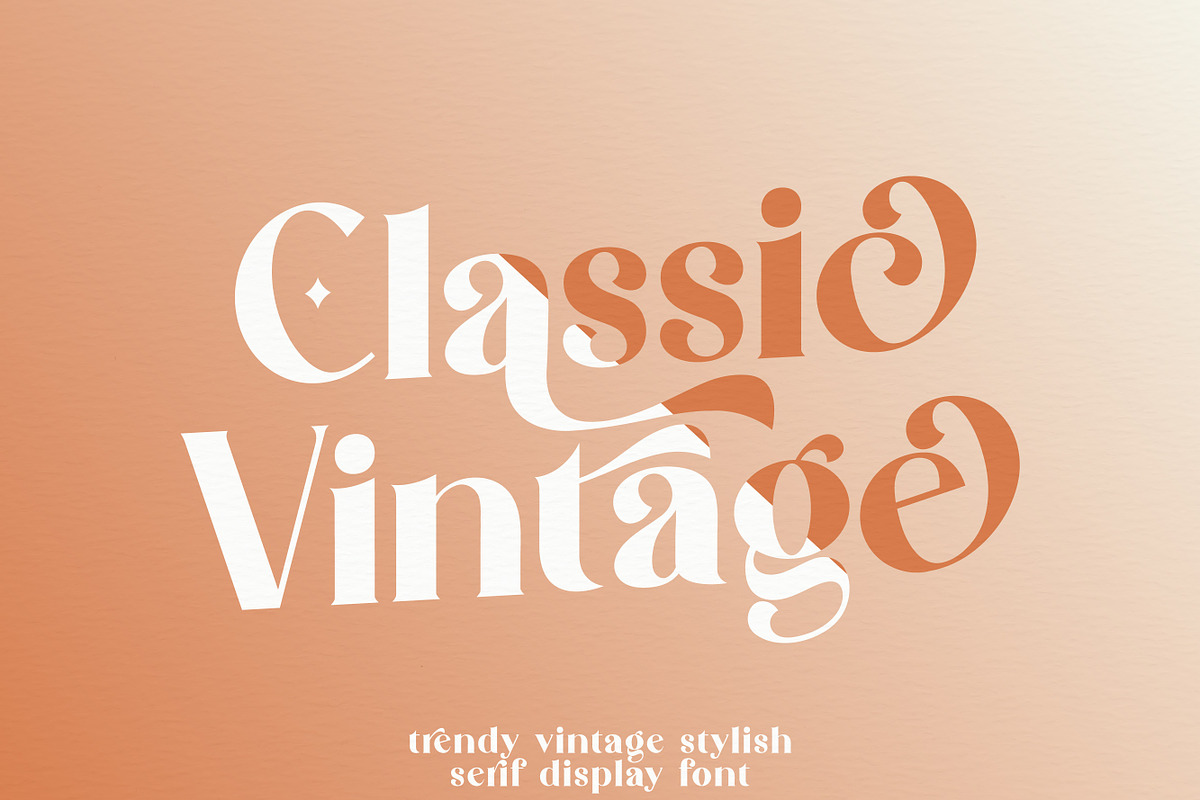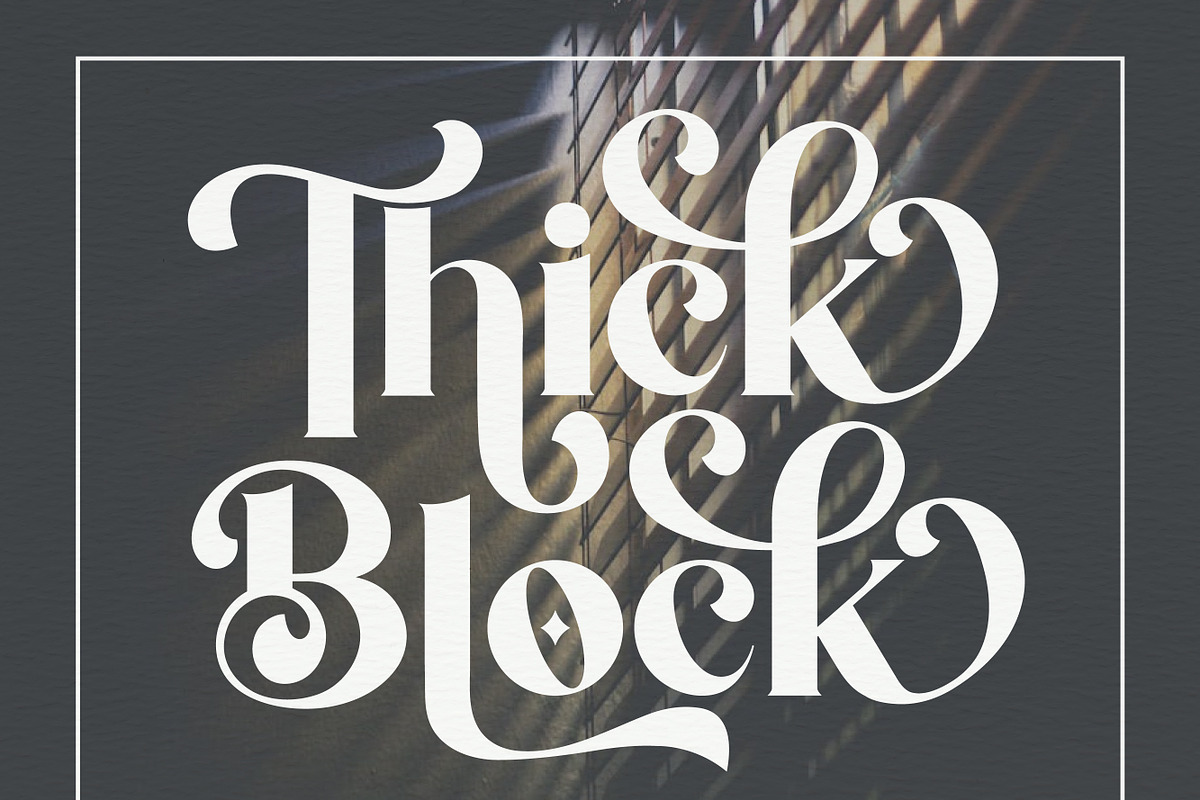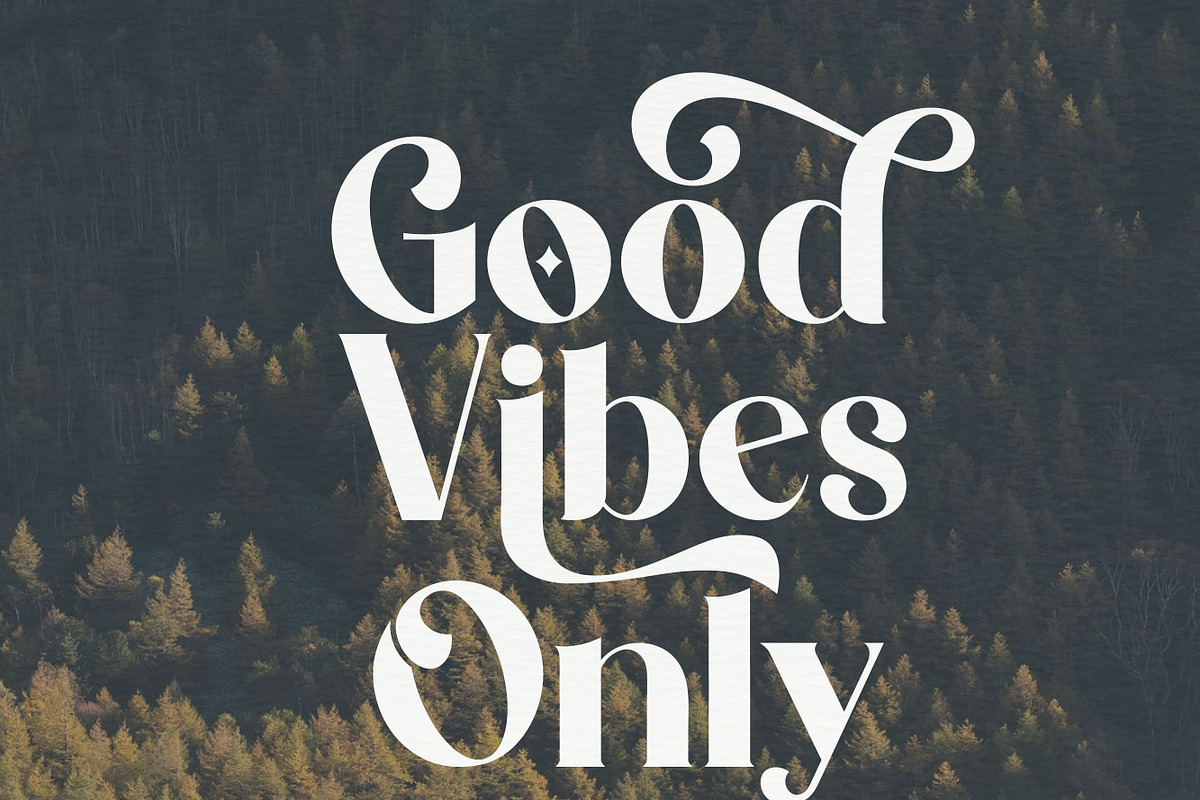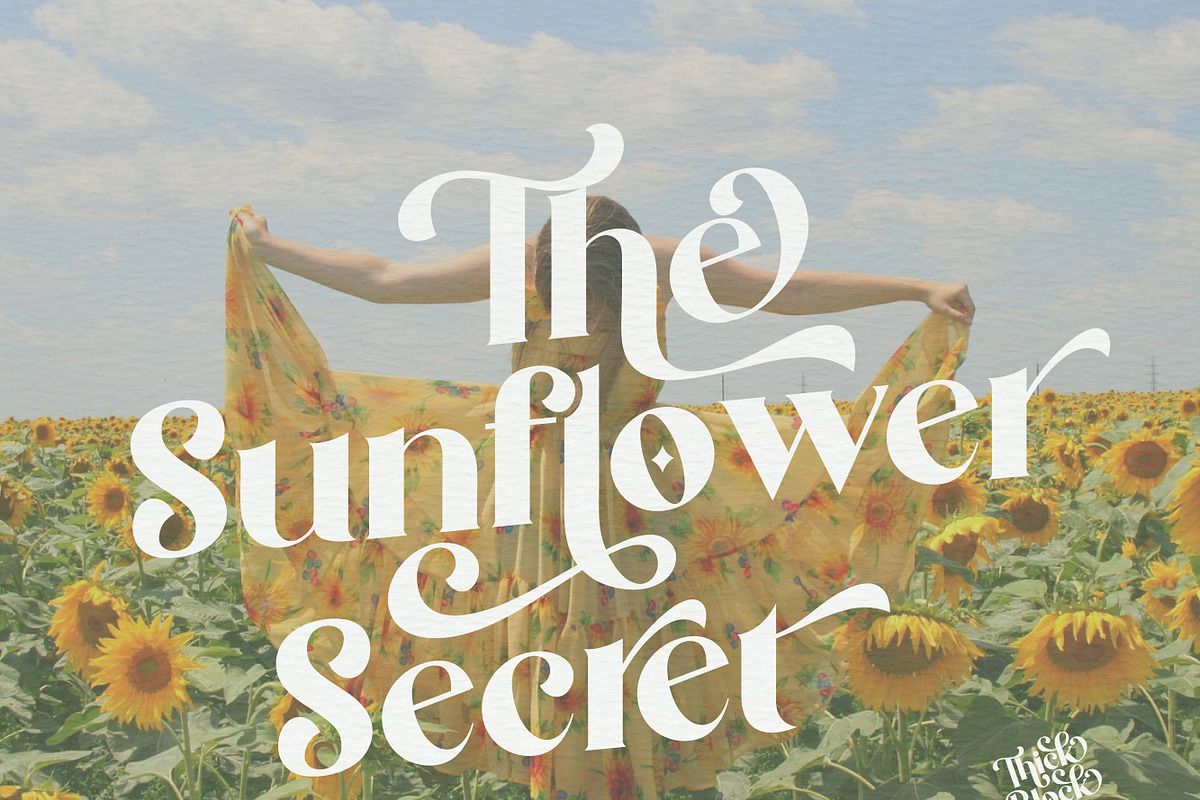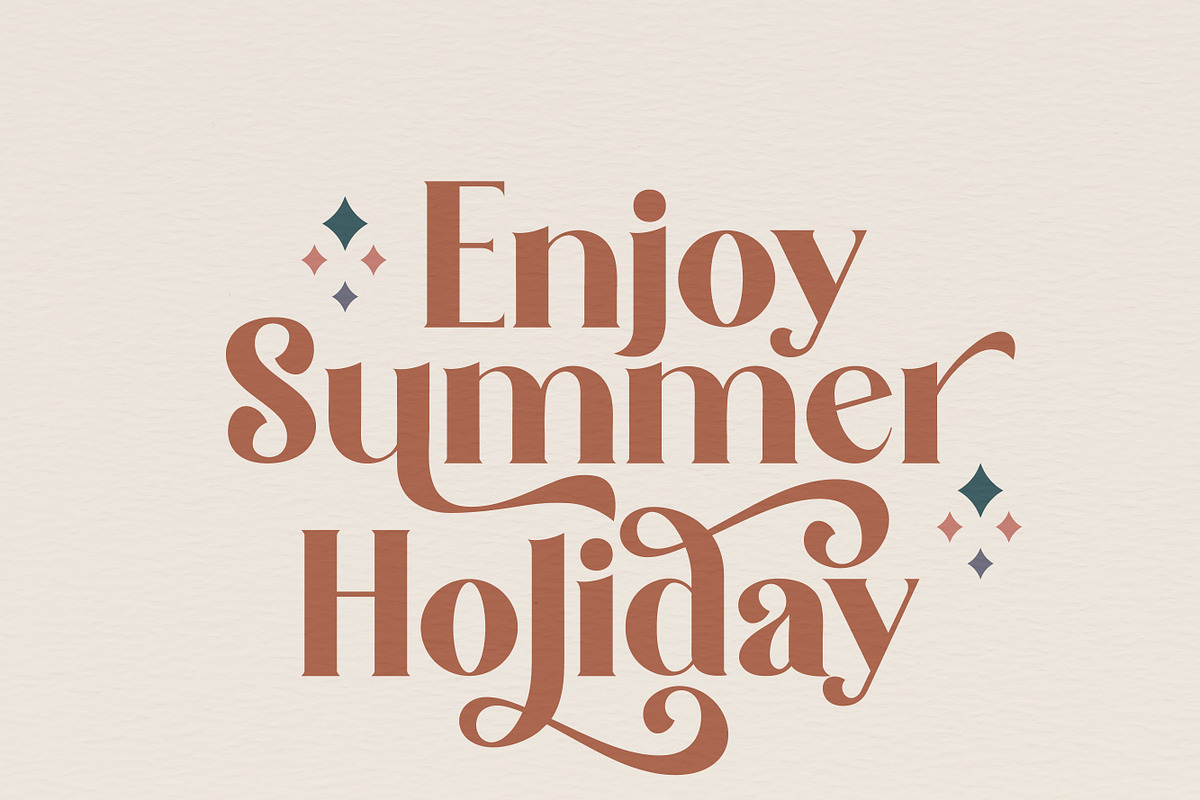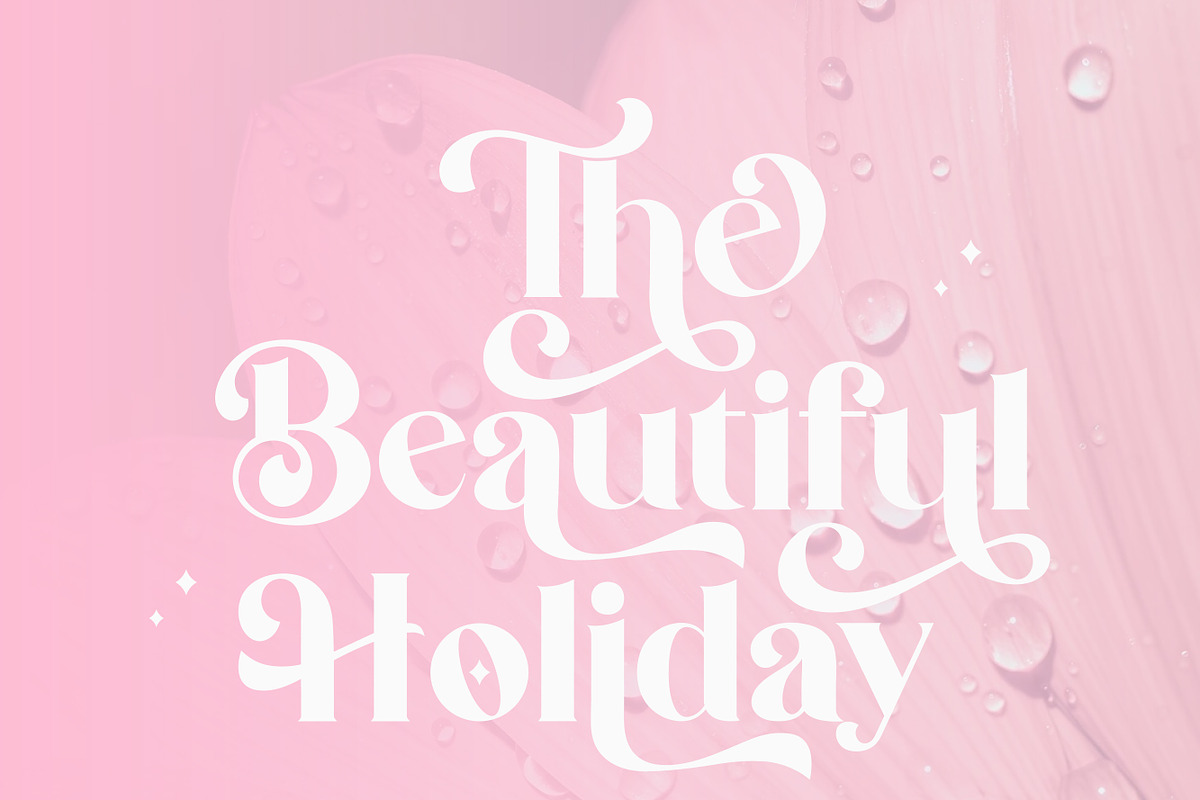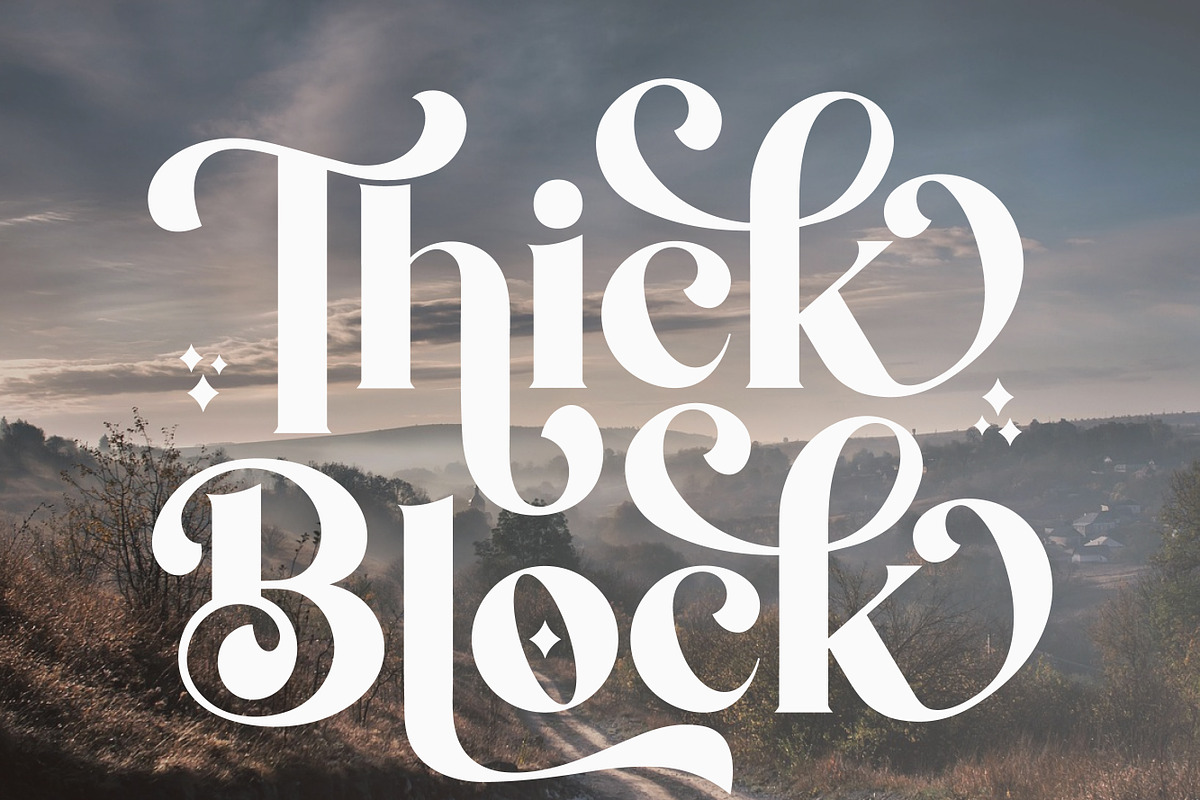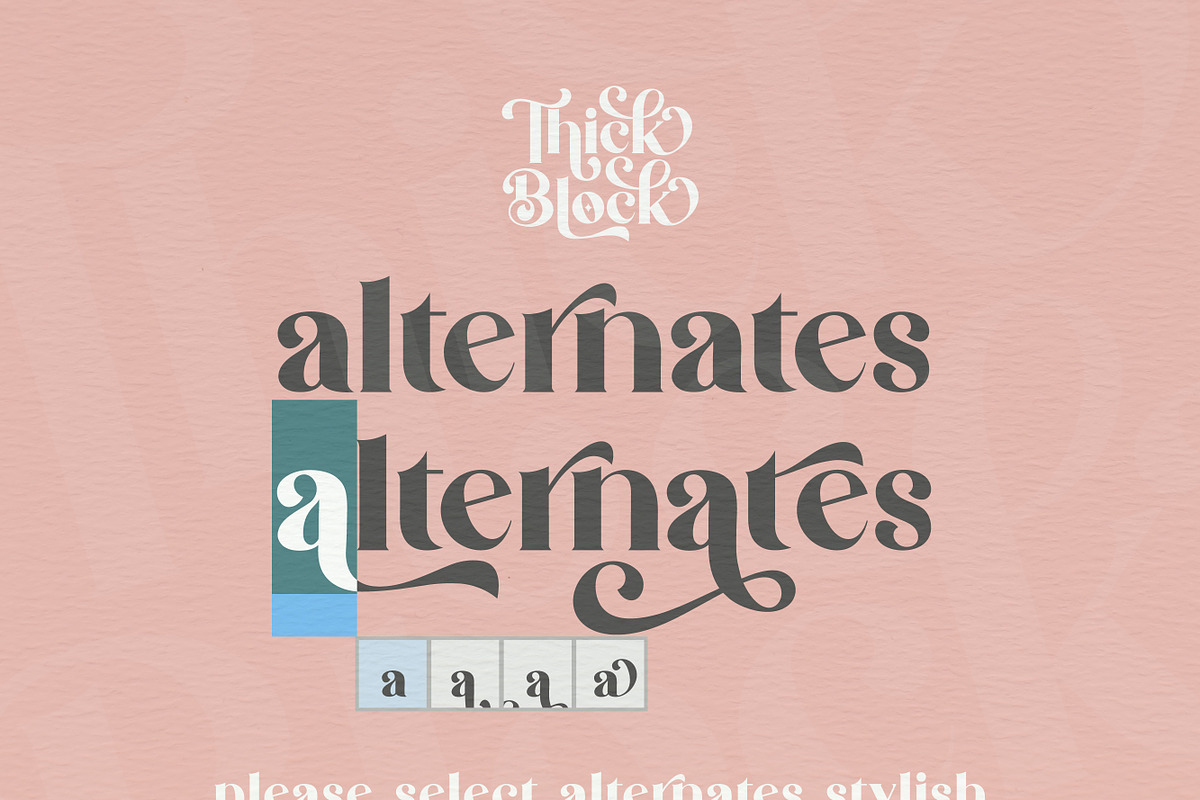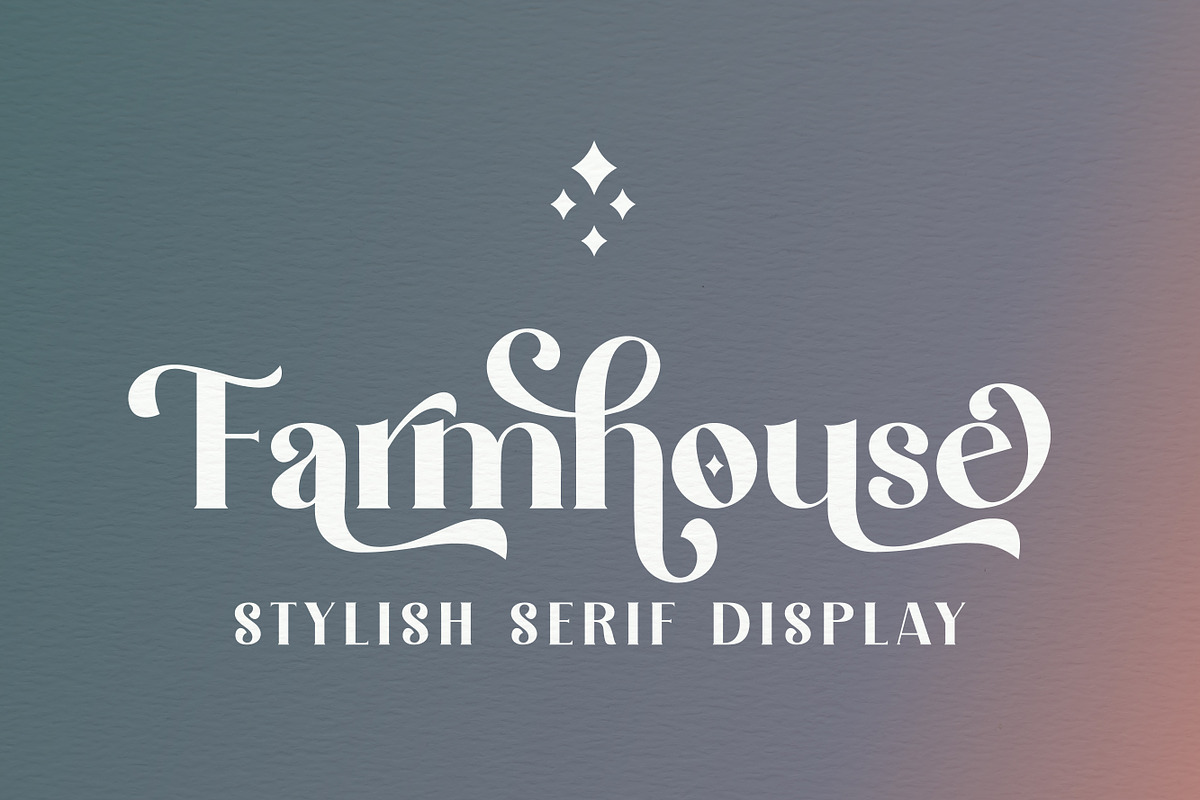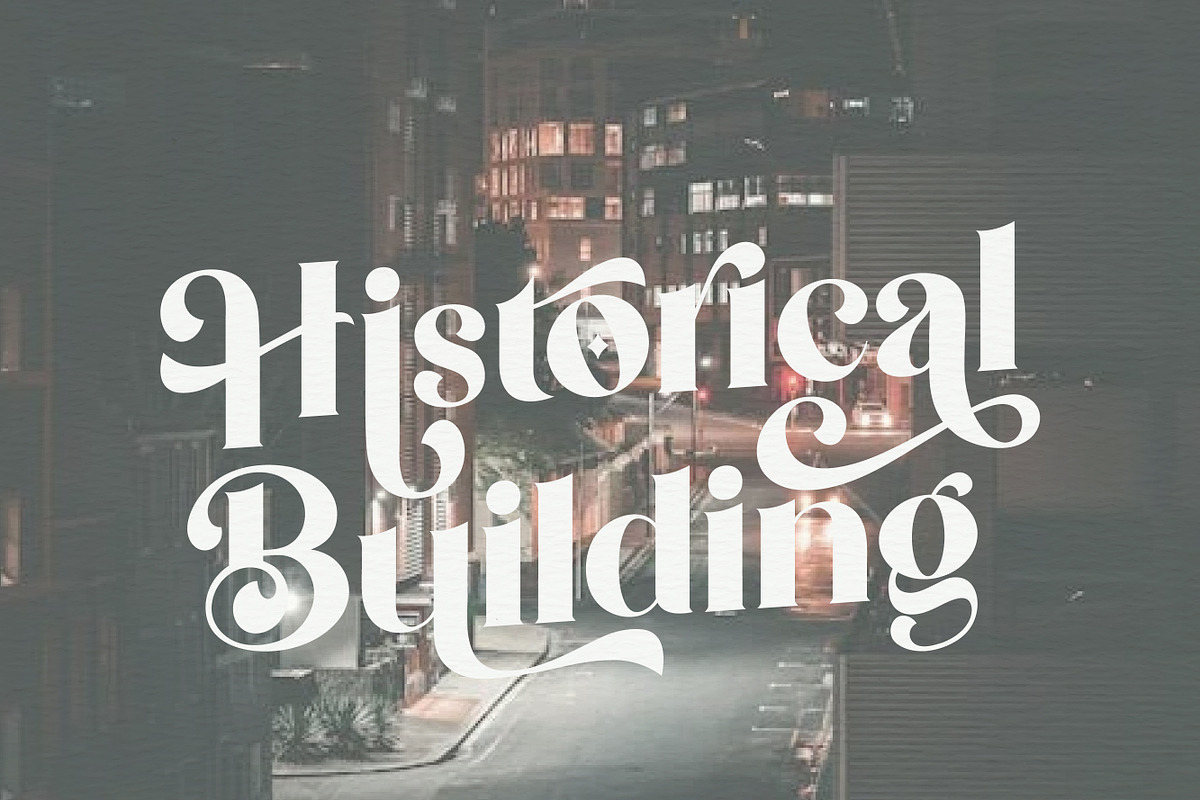
Thick Block
Thick Block is an incredibly unique and interesting font that exudes softness and elegance. It has a bold and charismatic display serif typeface. With graceful brings a touch of elevate any design project to the highest levels, wedding designs, signs, logos, product designs and more!